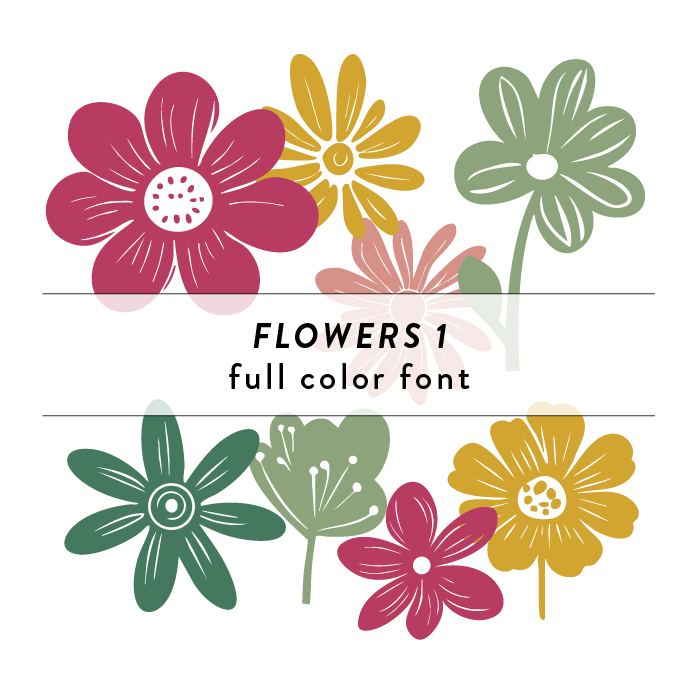
Flowers 1 Full Color Font is a decorative font design inspired by blooming flowers in a garden. The font features intricate floral patterns and vibrant colors, adding a whimsical touch to any project. Perfect for invitations, greeting cards, or any design that calls for a touch of nature and beauty. This font is a OTF craft font that will appear in color only when used with the silhouette software.